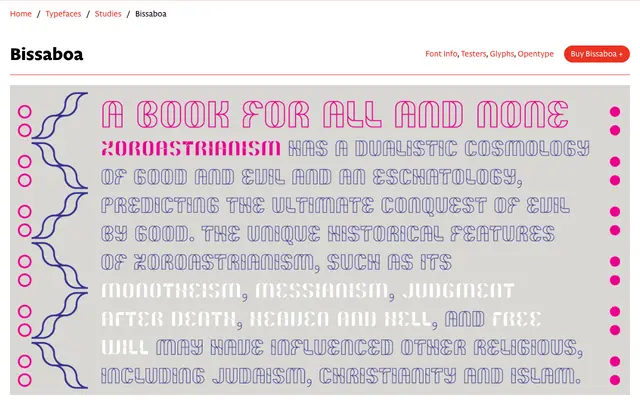
Bissaboa
A unicase display face by Alessandro Bombieri built on ribbon-like letterforms whose high thick-and-thin contrast comes from geometrically bent strokes rather than calligraphic tradition.
Designed by Alessandro Bombieri and released in 2020, Bissaboa takes its name from a Venetian mythological creature associated with zigzag and serpentine movement. Its letterforms follow a strict geometric construction, with contrast produced entirely by the bending of continuous ribbon-like strokes, evoking the Möbius strip, the Ouroboros and the double helix. Two character sets are provided via OpenType stylistic sets: outlined glyphs as default and filled glyphs as an alternative, allowing the two to be combined for multicolour titling work.
A single-weight unicase display face with high contrast derived from ribbon-like, geometrically constructed stroke bending rather than traditional calligraphic means. Intended exclusively for titling and display use.